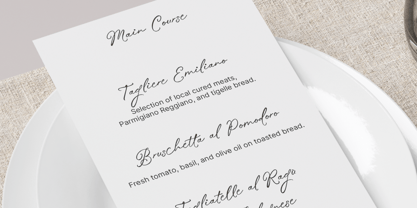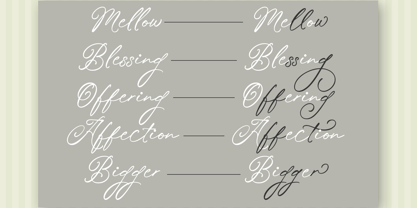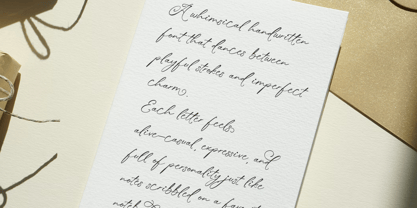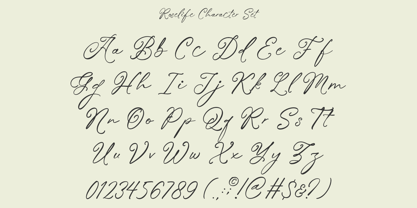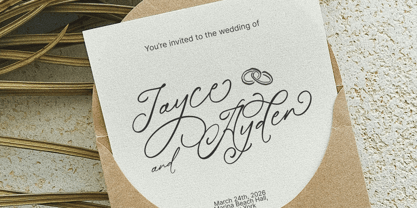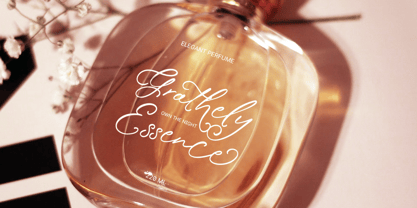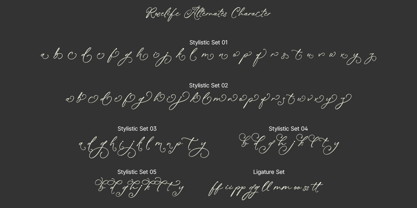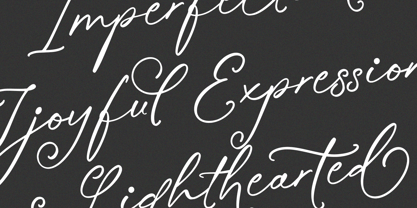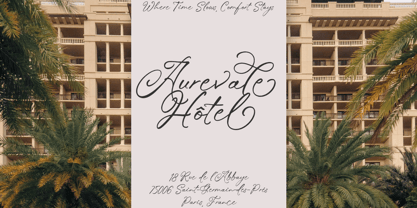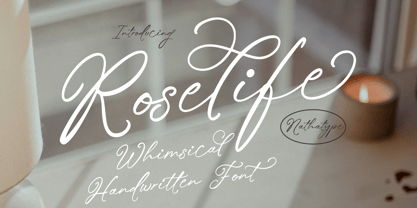
Roselife
The Roselife Font Family was designed by Donis Miftahudin and published by Nathatype. Roselife contains 1 styles. More about this family
Roselife is a delightful whimsical handwritten font. The flowing cursive structure of Roselife allows each letter to connect seamlessly, creating a soft and rhythmic movement across words. Roselife offers a beautifully balanced script style that feels natural, cohesive, and easy to read. It’s the perfect choice for designers who want a handwritten font that is both expressive and polished. In addition, enjoy the features here. Features: Ligatures Stylistic Sets Multilingual Supports PUA Encoded Numerals and Punctuations Roselife fits in invitations, logos, quotes, branding, posters, and many more designs. Find out more ways to use this font by taking a look at the font preview. Thanks for purchasing our fonts. Hopefully, you have a great time using our font. Feel free to contact us anytime for further information or when you have trouble with the font. Thanks a lot and happy designing.